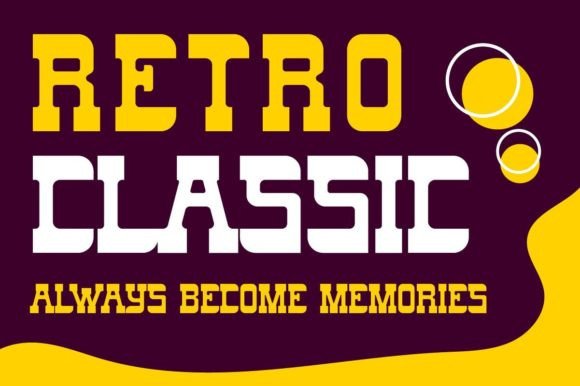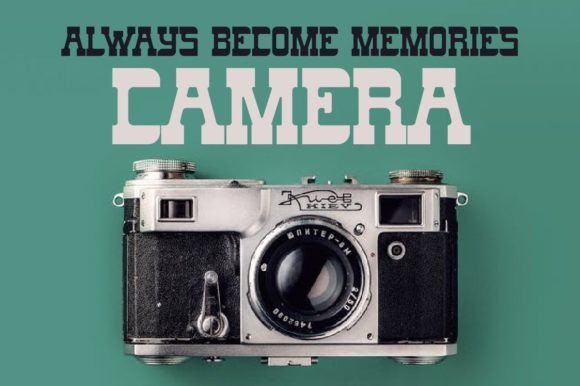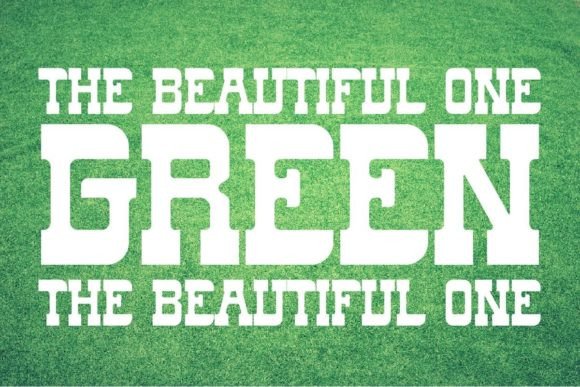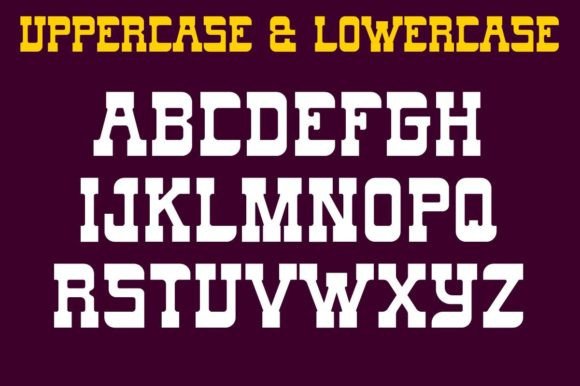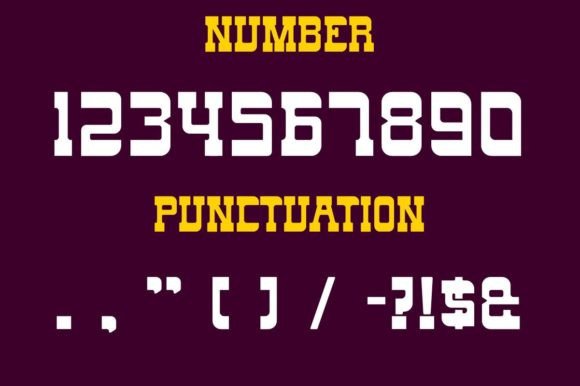
Introducing Axebold Font: A Vintage Serif Typeface with a Modern-Classic Feel
Are you a designer or crafter looking for a unique and versatile font to elevate your designs? Look no further than Axebold Font, a vintage serif typeface with a modern-classic feel that’s sure to inspire. In this article, we’ll dive into the world of Axebold Font, exploring its features, benefits, and uses, as well as provide tips and tricks for incorporating it into your design projects.
What is Axebold Font?
Axebold Font is a carefully crafted, all-caps serif typeface that’s inspired by vintage signage and minimalist serif style. With its bold and elegant letterforms, Axebold Font is perfect for designers and crafters who want to add a touch of sophistication and nostalgia to their designs. Whether you’re working on a branding project, a craft project, or simply looking for a font to add some personality to your digital creations, Axebold Font is an excellent choice.
Key Features of Axebold Font
So, what makes Axebold Font so special? Here are some of its key features:
- Vintage-inspired design: Axebold Font draws inspiration from classic vintage signage, giving it a unique and timeless feel.
- Modern-classic feel: Despite its vintage roots, Axebold Font has a modern-classic feel that’s perfect for designers who want to create contemporary designs with a nostalgic twist.
- All-caps font: Axebold Font is an all-caps font, which means you can use it to create bold and eye-catching designs that demand attention.
- Multiple variations: With Axebold Font, you get access to multiple variations, allowing you to experiment with different styles and create unique designs.
Benefits of Using Axebold Font
So, why should you choose Axebold Font for your design projects? Here are some benefits of using this amazing font:
- Instant recognition: Axebold Font’s unique design makes it instantly recognizable, which can help your brand or design stand out from the crowd.
- Flexibility: With its multiple variations, Axebold Font is incredibly versatile, allowing you to use it in a wide range of design projects, from branding and advertising to crafting and digital art.
- Easy to read: Despite its bold and decorative design, Axebold Font is easy to read, making it perfect for use in body text, headings, and titles.
Using Axebold Font in Your Design Projects
So, how can you use Axebold Font in your design projects? Here are some ideas to get you started:
- Branding and logos: Axebold Font is perfect for creating bold and eye-catching logos that make a statement.
- Advertising and marketing: Use Axebold Font to create attention-grabbing headlines and titles that drive engagement.
- Crafting and DIY projects: Axebold Font is a great choice for crafters and DIY enthusiasts who want to add a personal touch to their projects.
- Digital art and illustration: Experiment with Axebold Font to create unique and eye-catching digital art and illustrations.
Tips and Tricks for Working with Axebold Font
Here are some tips and tricks to help you get the most out of Axebold Font:
- Experiment with different variations: Don’t be afraid to try out different variations of Axebold Font to find the one that works best for your design.
- Use it sparingly: Axebold Font is bold and eye-catching, so use it sparingly to avoid overwhelming your design.
- Pair it with other fonts: Experiment with pairing Axebold Font with other fonts to create unique and interesting combinations.
- Pay attention to spacing and kerning: Make sure to pay attention to spacing and kerning to ensure that your text looks professional and polished.
| Font Name | Axebold Font |
| Author | IHD.STD |
Axebold Font is a versatile and stylish vintage serif typeface that’s perfect for designers and crafters who want to add a touch of sophistication and nostalgia to their designs. With its bold and elegant letterforms, multiple variations, and ease of use, Axebold Font is an excellent choice for a wide range of design projects. Whether you’re working on a branding project, a craft project, or simply looking for a font to add some personality to your digital creations, Axebold Font is definitely worth checking out.